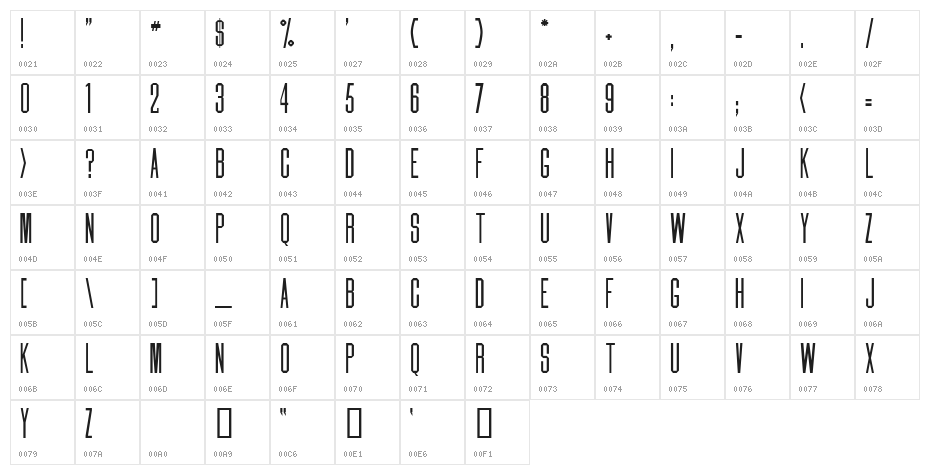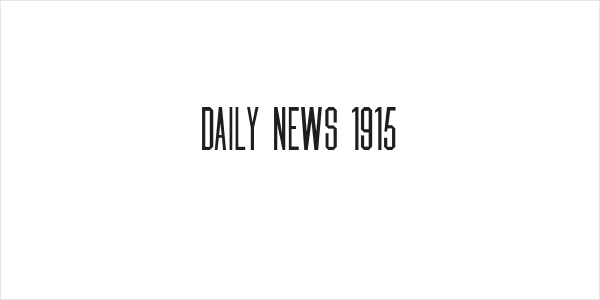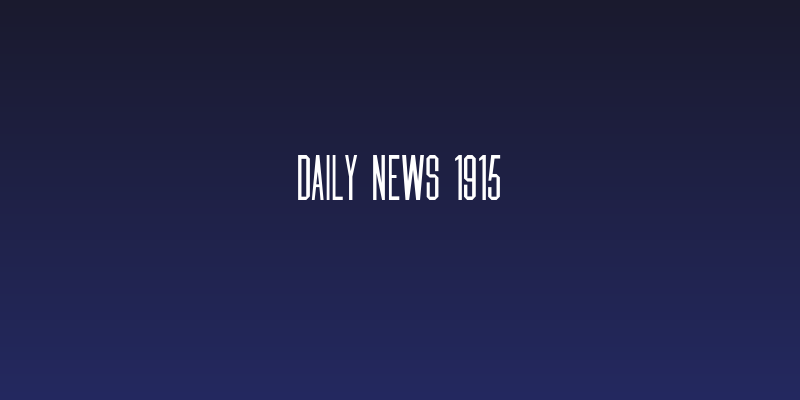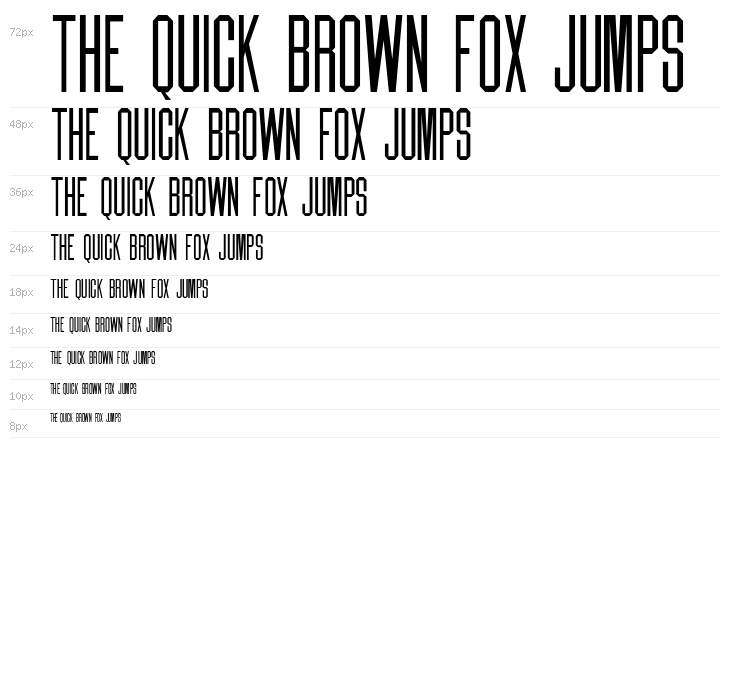
Daily News 1915 Font
Daily News 1915 Description
This font features a bold and condensed style with tall, narrow letters that create a strong visual impact. The uppercase and lowercase letters maintain a consistent height, contributing to a uniform appearance. The numerals are similarly styled, ensuring readability and cohesion with the alphabet. The special characters are distinct and match the overall aesthetic, making this font suitable for attention-grabbing designs. The high contrast between the thick vertical strokes and thinner horizontal lines adds to its striking presence.
| Proposed Projects | Ideal for headlines, posters, and branding materials where a bold statement is needed. |